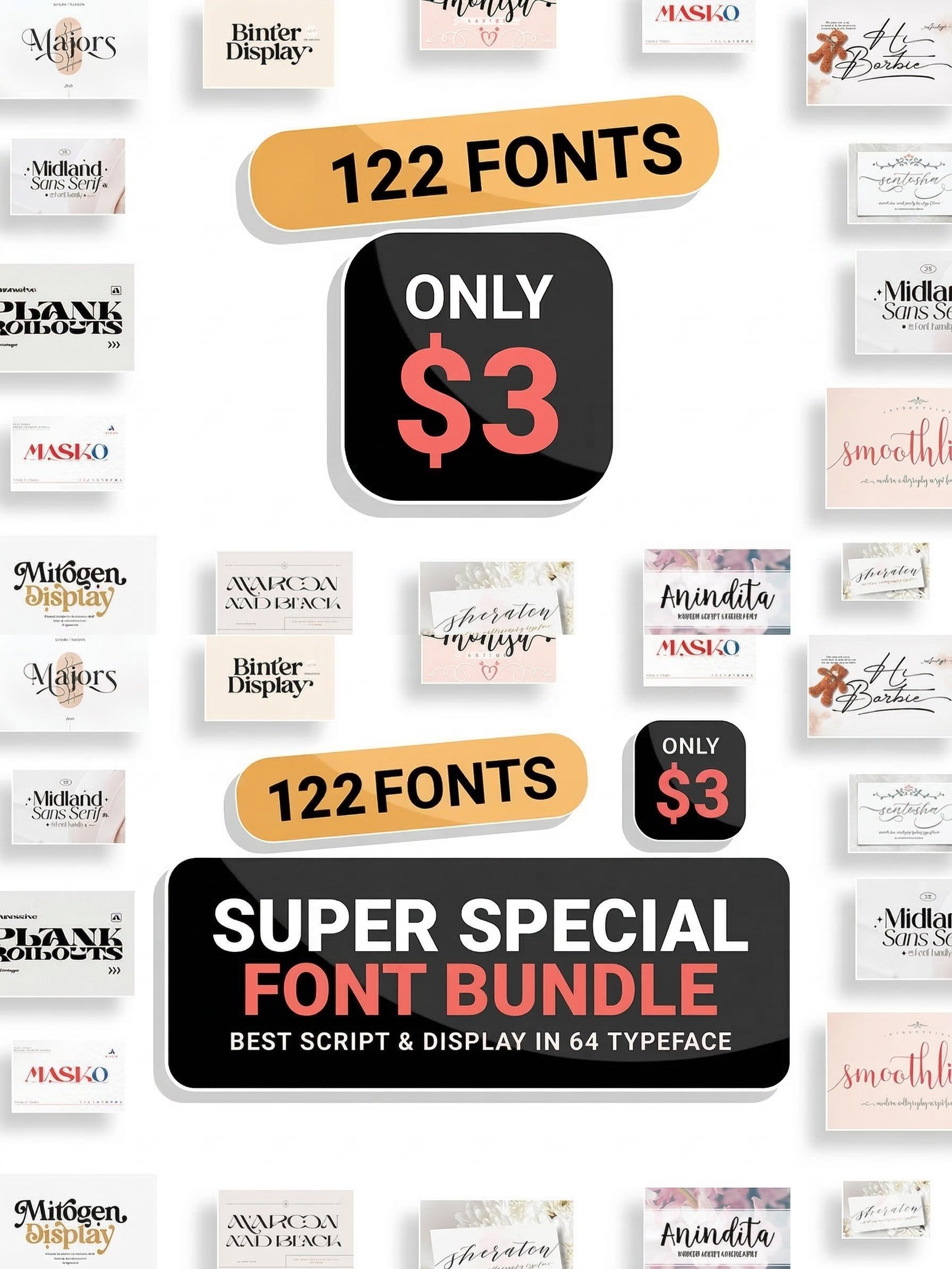
This bundle is a must-have for designers, crafters, and social media enthusiasts. It includes a versatile mix of elegant Script fonts and bold Display typefaces, perfect for everything from wedding invitations to professional branding.
• 122 Individual Fonts: A huge variety of styles including Modern Calligraphy, Minimalist Sans Serif, Bold Display, and Decorative Scripts.
• 64 Unique Typefaces: Carefully selected families to ensure you have the right look for every project.
• Premium Quality: Clean lines and professional kerning, tested for use in professional design software and cutting machines (Cricut/Silhouette).
• Script & Calligraphy: Anindita, Smoothline, Monisa, Sheraton
• Modern Display: Binter Display, Mitogen, Majors, Plank Rollouts
• Serif & Sans Serif: Midland, Masko, Avarcon
• And many more! (Including Hi-Barbie, Flowerroom, Mustang-Script, etc.)
• Logo Design & Branding
• Wedding Stationery & Invitations
• Social Media Graphics & Quotes
• T-shirt Designs & Merchandise
• Digital Scrapbooking